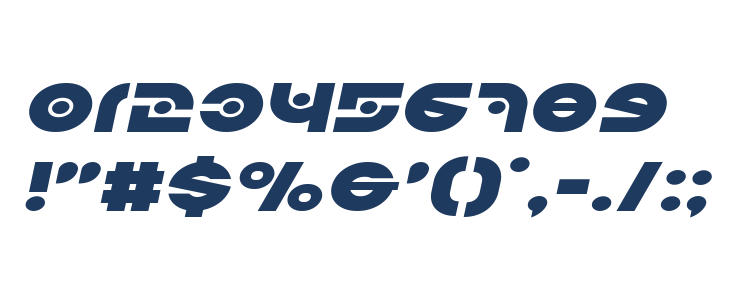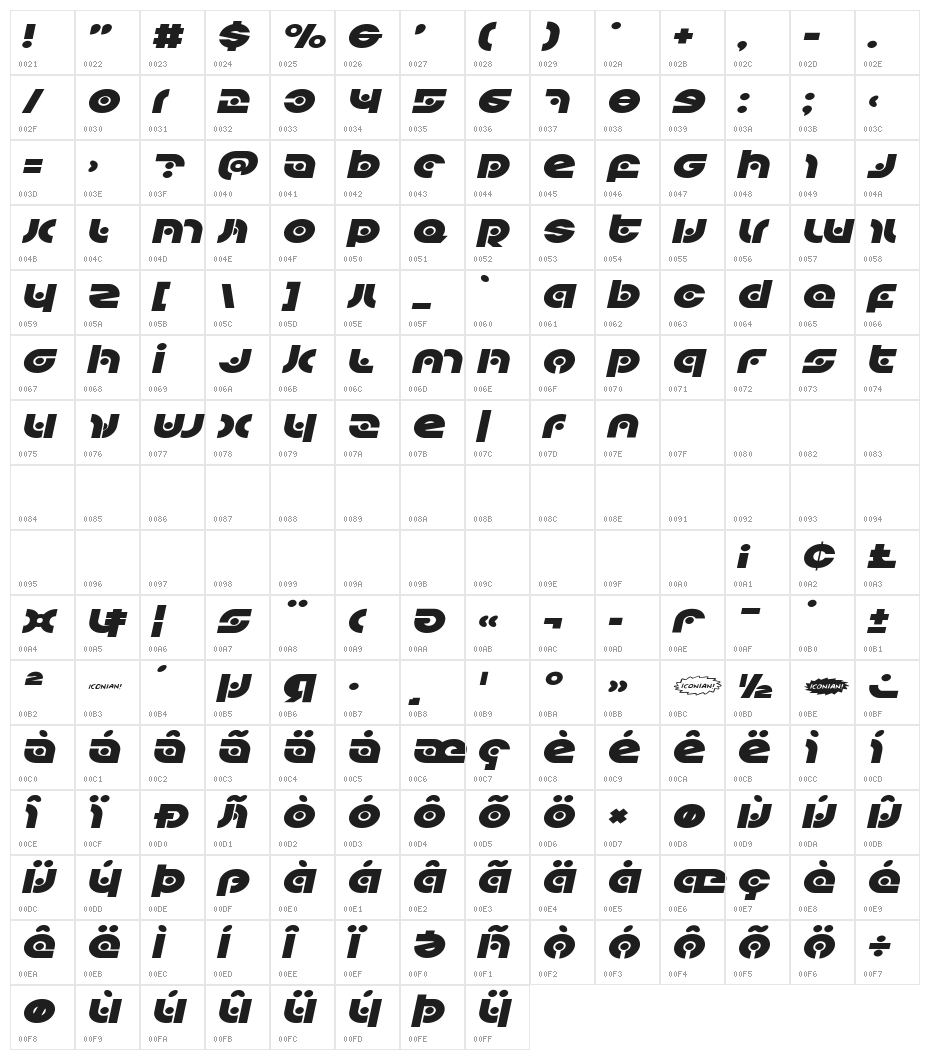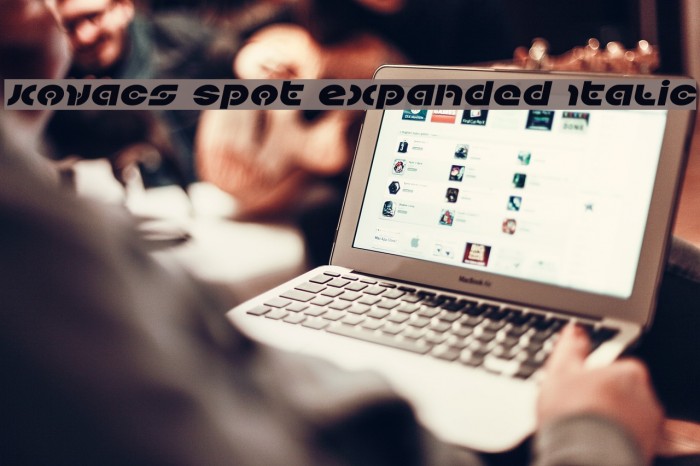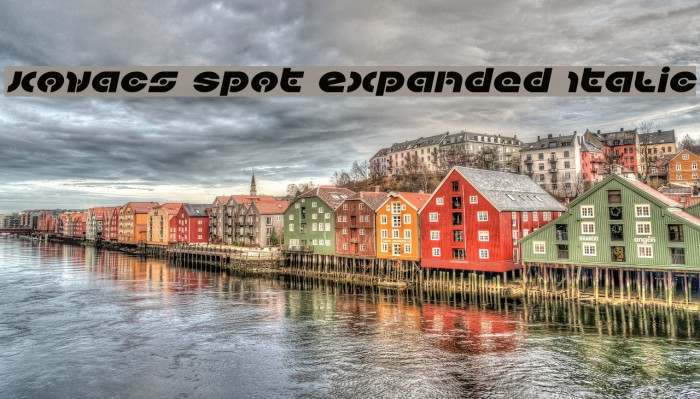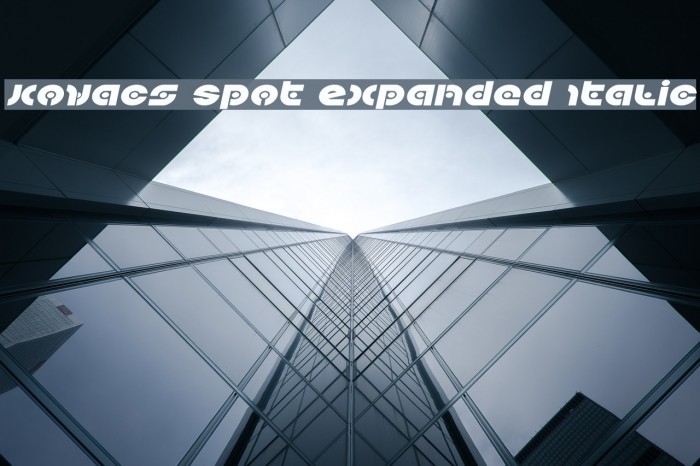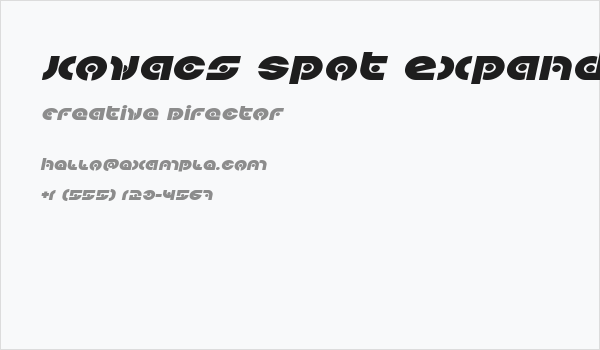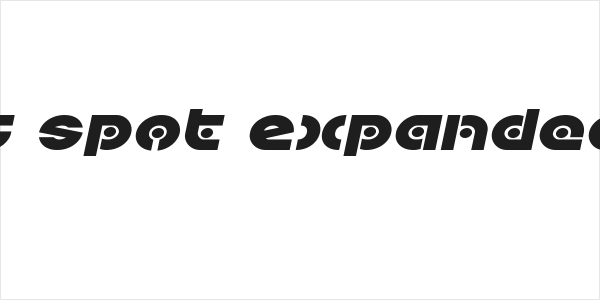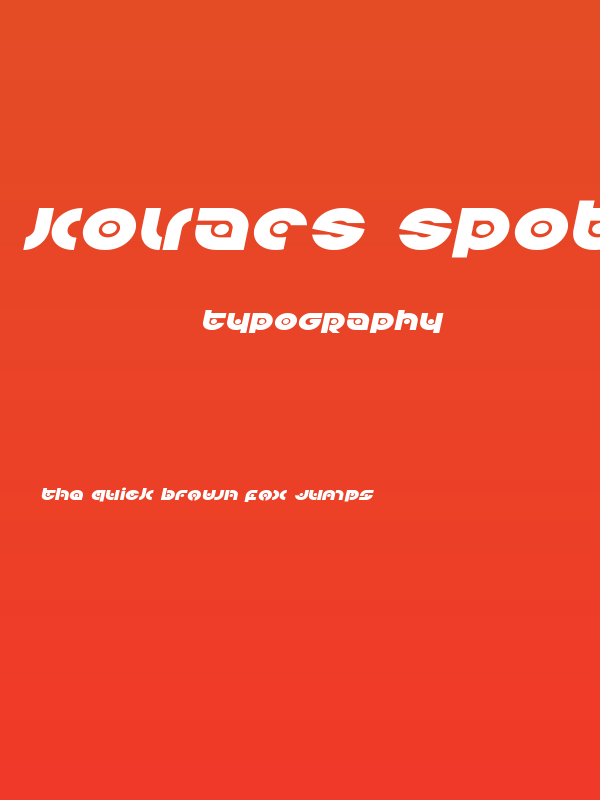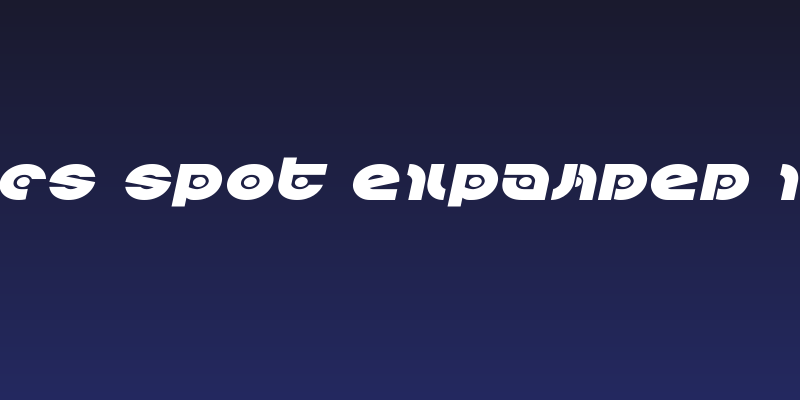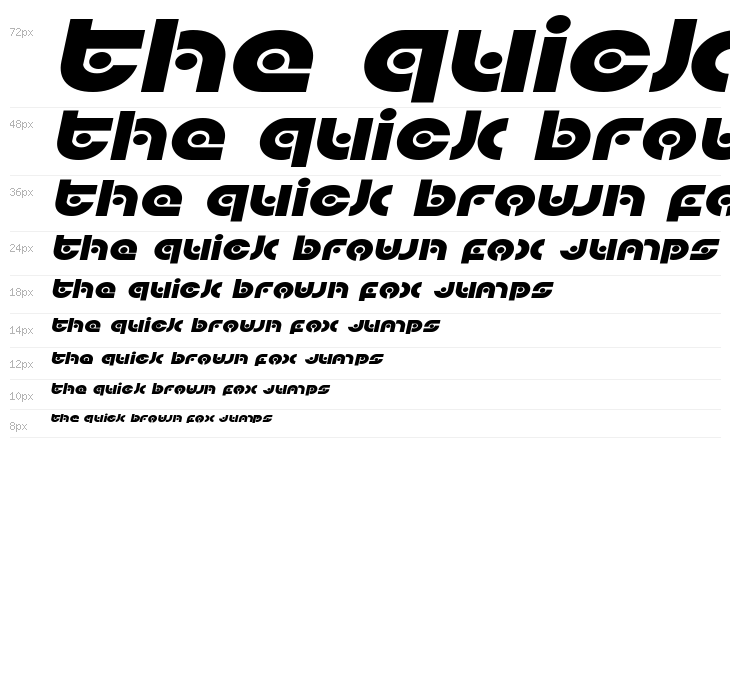
Kovacs Spot Expanded Italic Font
Kovacs Spot Expanded Italic Description
This font features a bold and dynamic style with a futuristic flair. Its expanded and italicized form gives it a unique, forward-leaning appearance, making it stand out in any design. The characters are constructed with geometric precision, incorporating sharp angles and smooth curves that create a sense of movement and energy. The font's high contrast between thick and thin strokes adds to its striking visual impact. It is well-suited for projects that require a modern and edgy look, such as technology branding, sports team logos, or sci-fi themed designs. The spacing between characters is tight, enhancing its compact and cohesive appearance.
| Use Case | Logos, Headlines |
| Proposed Projects | Ideal for technology branding, sports logos, sci-fi themes, and modern design projects. |